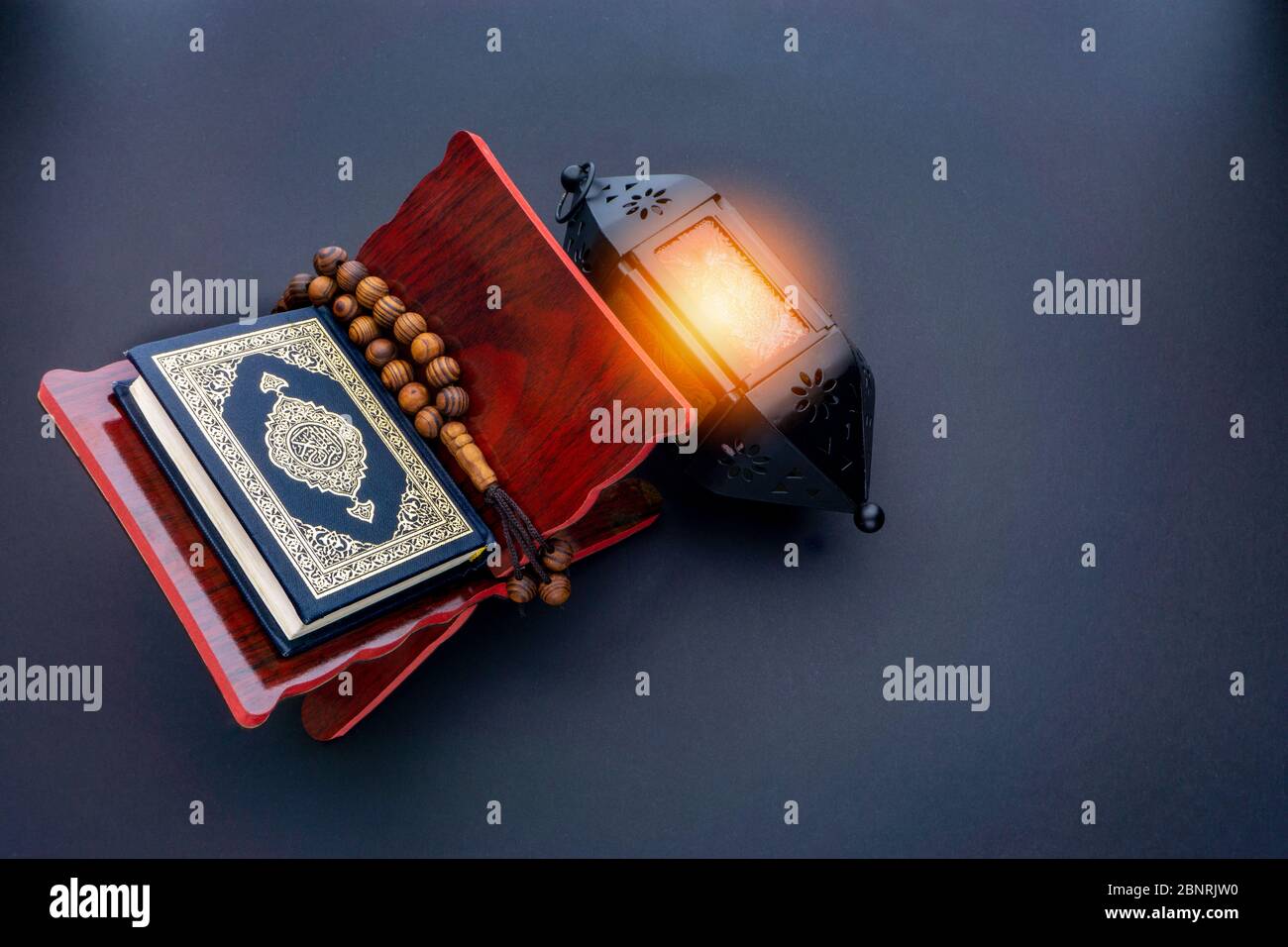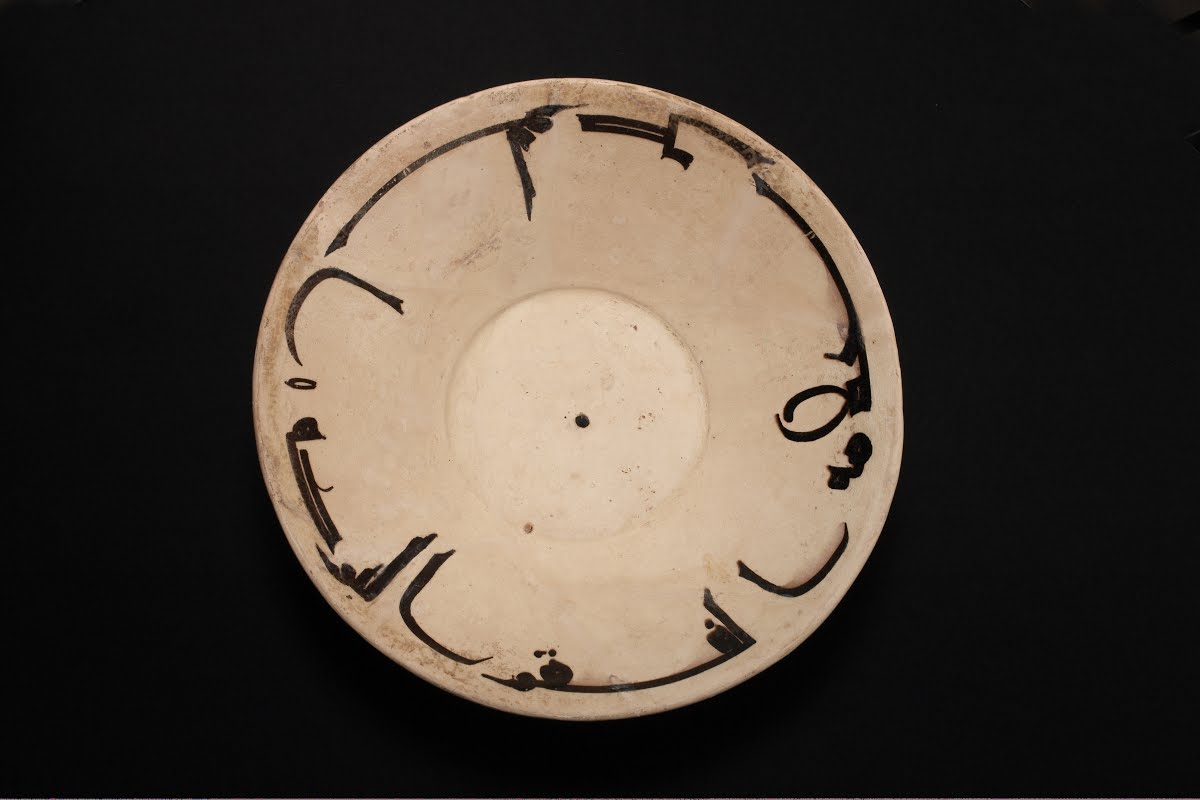
Free Modern Arabic Calligraphy Quran Verses Free Typography Fonts
modern arabic calligraphy quran verses
There are many other famous works of khaleel in which he drew the verses of holy quran using not only the letters of the verses but also depicting the.
Modern arabic calligraphy quran verses. Try these curated collections. Calligraphy from the holy quran verses as pictures that carry its meaning. And who is better in speech than one who invites to god. Today i am bringing before you an islamic collection of 50 beautiful islamic calligraphy typography verses for inspiration.
Khaleel started his calligraphic works by drawing verses from the holy quran as pictures that carry its meaning. Find arabic calligraphy islamic calligraphy verse quran stock images in hd and millions of other royalty free stock photos illustrations and vectors in the shutterstock collection. Islam is a beautiful religion and it is the religion of quarter half of the people on the globe it is widespread and the holy quran is known to be the most recited book in the cosmos. Jul 31 2019 explore rabeea ahsans board quranic verses calligraphy on pinterest.